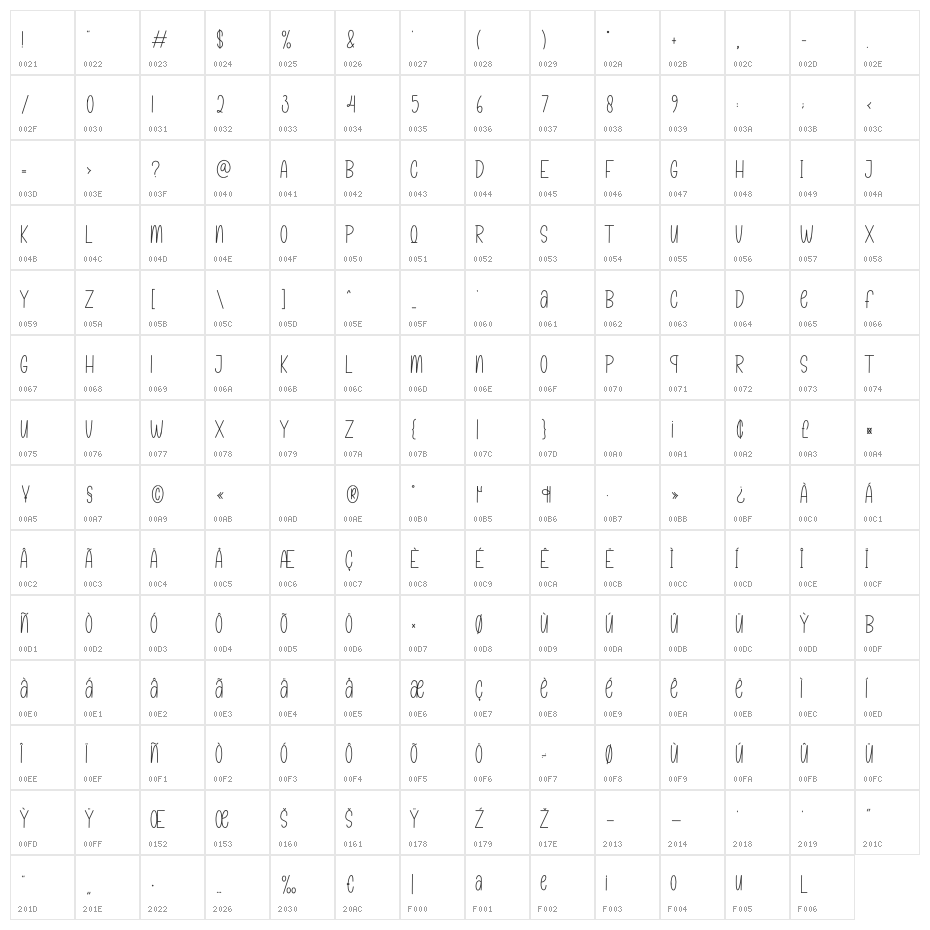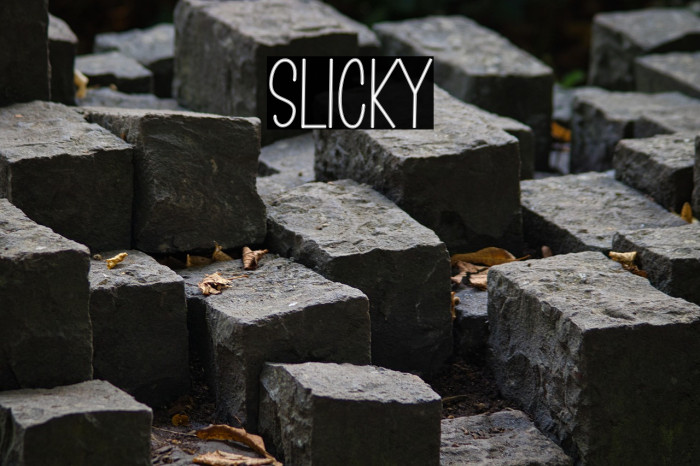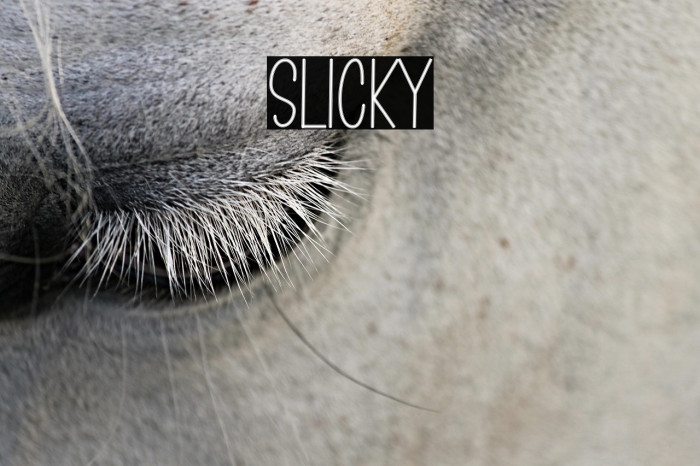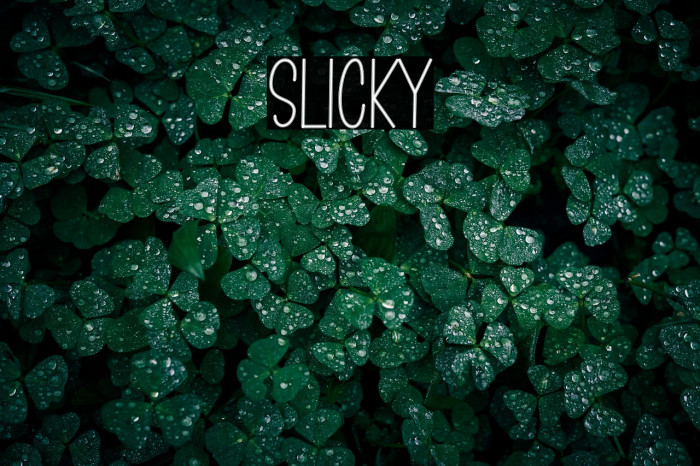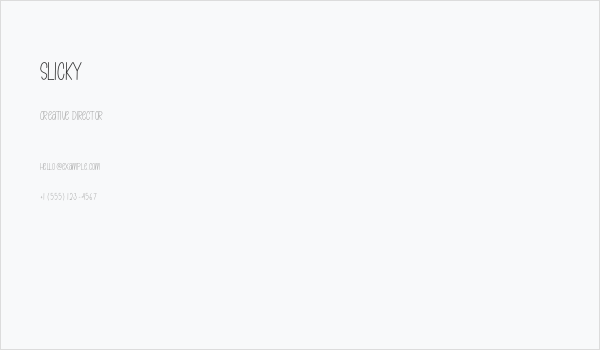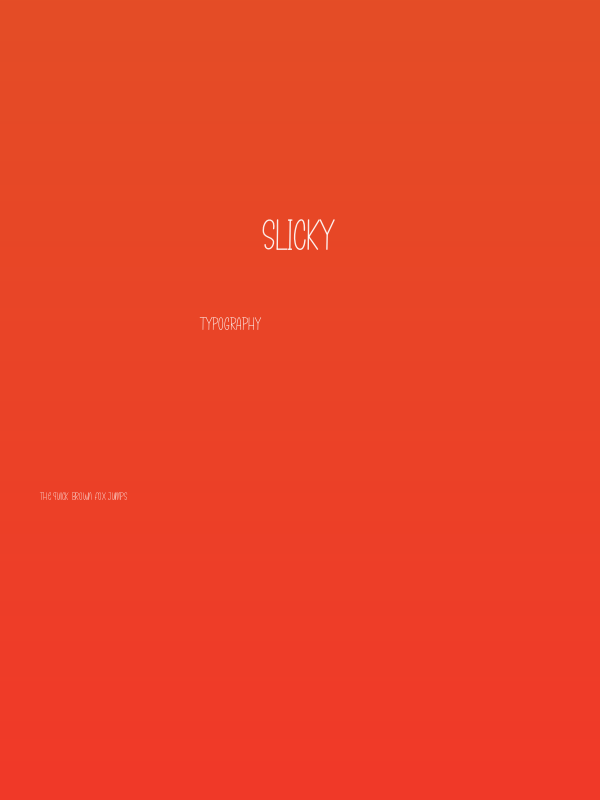
Slicky Font
Slicky Description
A tall, narrow font with a playful and casual style, featuring rounded edges and consistent stroke width.
| Width | Condensed |
| Overall Style | Casual, Playful |
| Proposed Projects | Greeting cards, invitations, playful branding. |